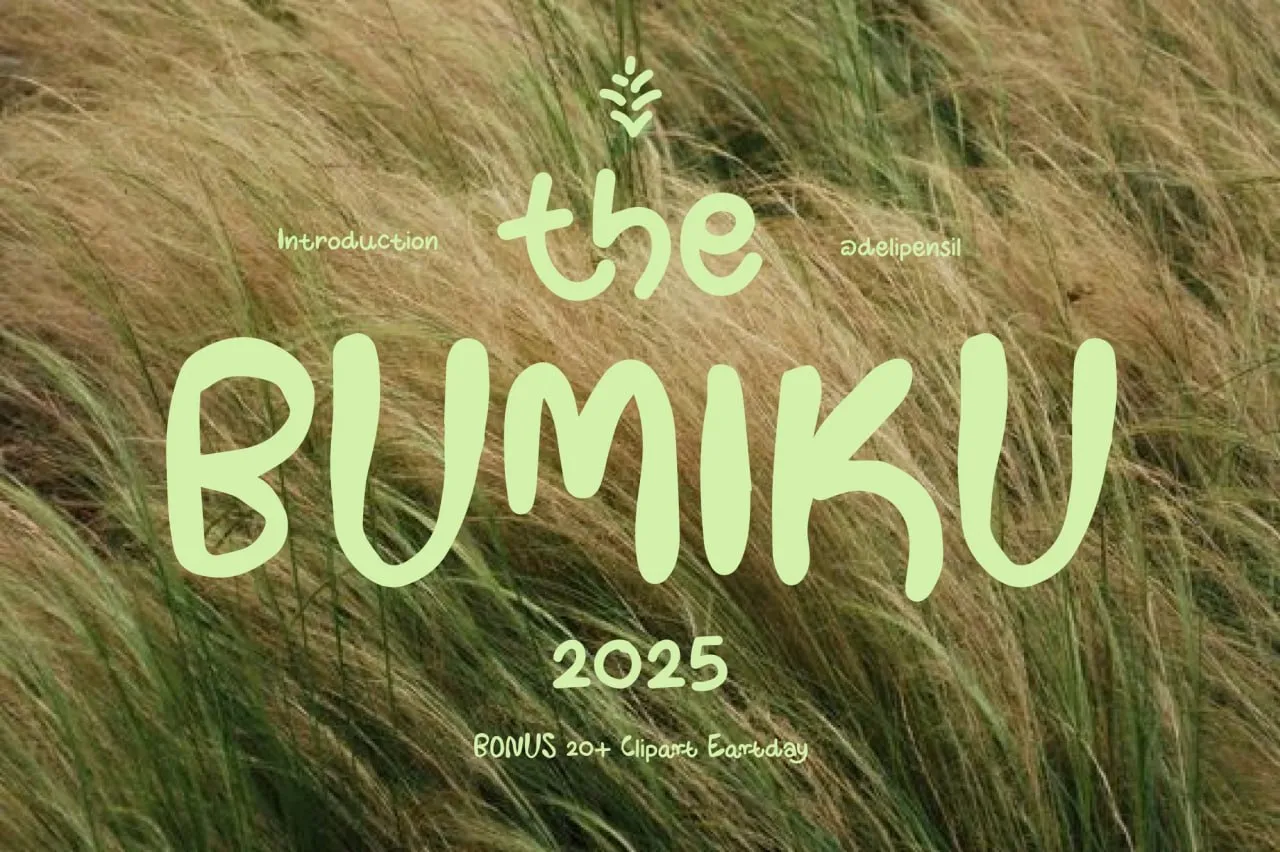
Bumiku – Free Procreate Fonts Download | Playful Organic Lettering
Free Bumiku procreate fonts playful organic lettering + bonus cliparts for nature designs, kids art, and soft hand-drawn styles.
Add a warm, hand-drawn touch to your artwork with Bumiku, a charming organic-style typeface included in our collection of procreate fonts. With rounded curves, friendly shapes, and a natural flow, this free font is perfect for nature-inspired projects, kids’ illustrations, eco branding, quotes, posters, and cozy aesthetic designs.